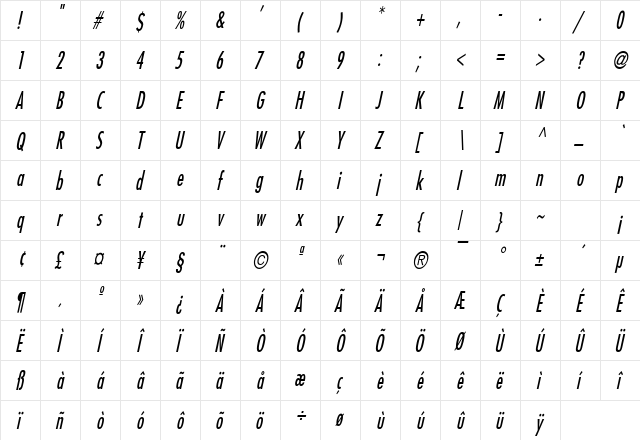
Fuji Thin Italic
Design Context for Fuji Thin Typeface
Fuji Thin offers clean, dependable letterforms without strong stylistic allegiance, making it a practical choice for designers who need flexibility. Its italic angle brings a sense of urgency and motion to the letterforms. The delicate stroke weight brings airiness and refinement to layouts.
Pro Tip: Use Fuji Thin for emphasis, pull quotes, and subheadings where its slanted energy can add rhythm to the layout.